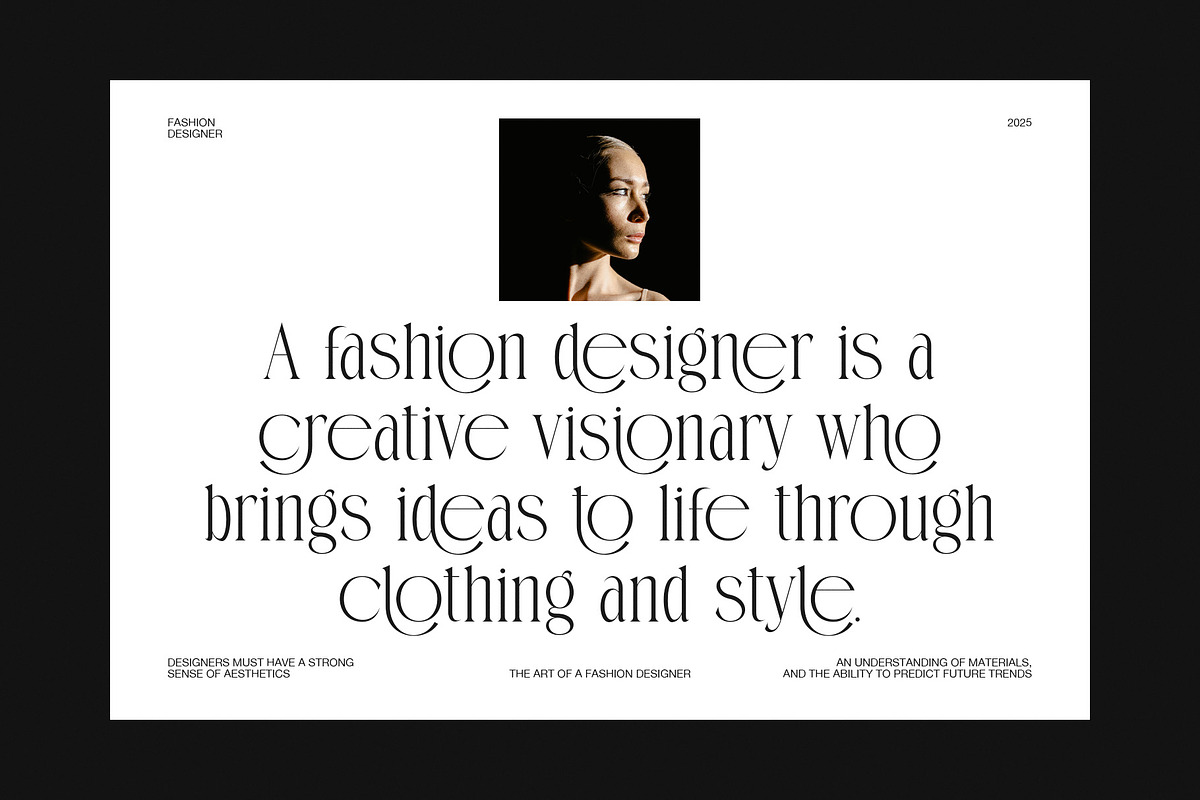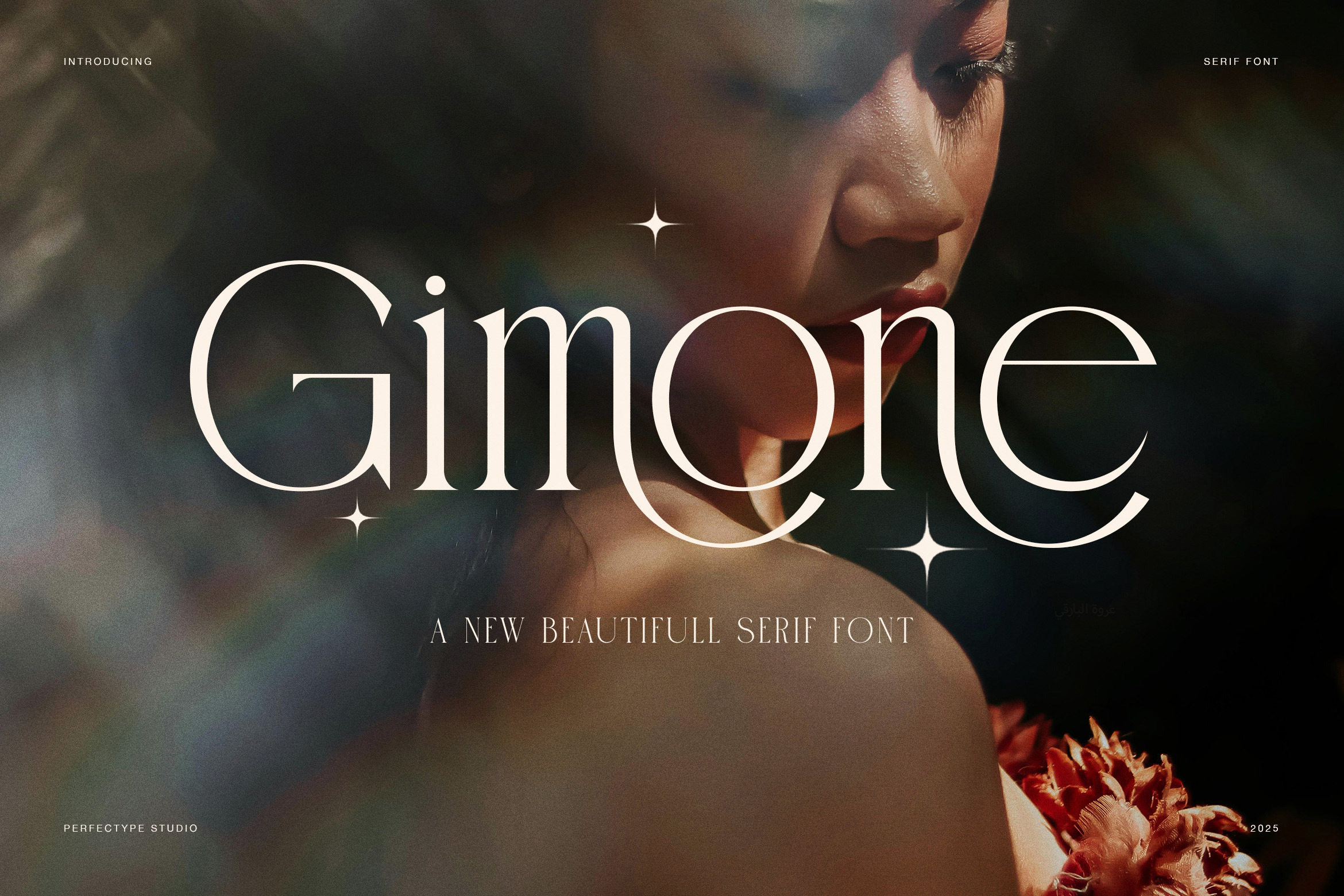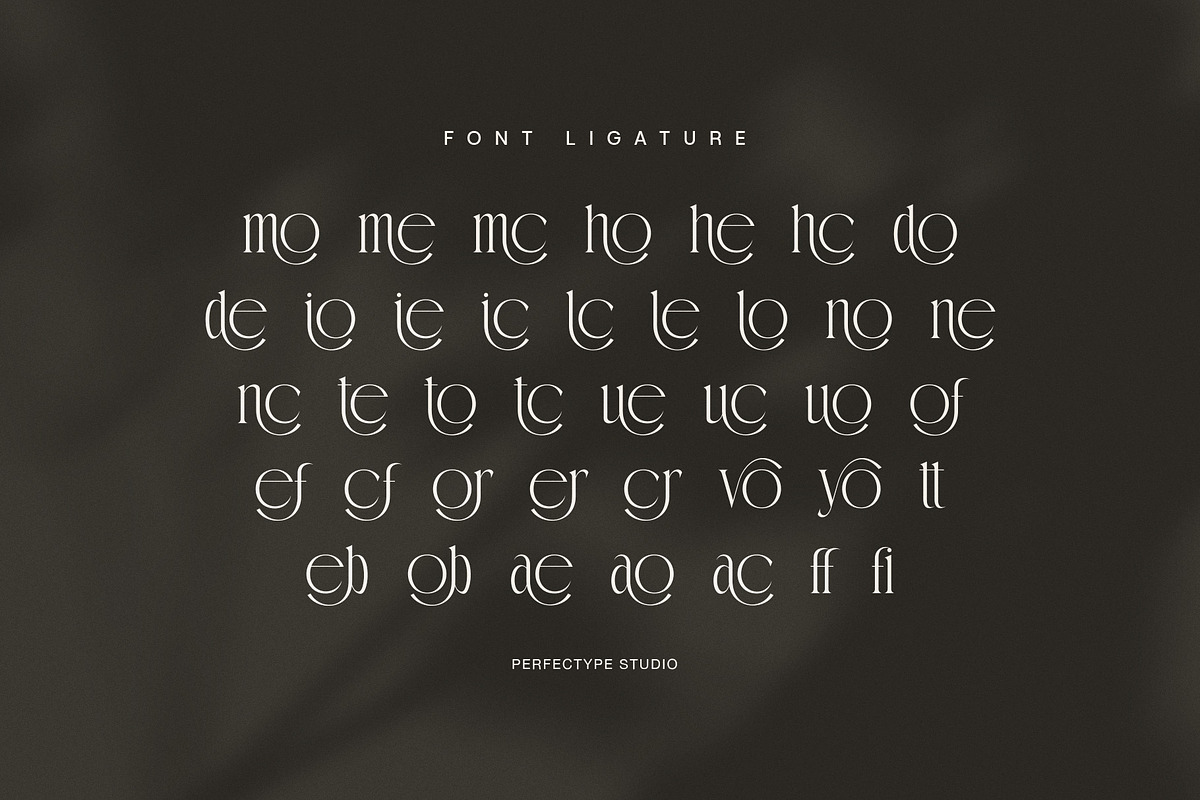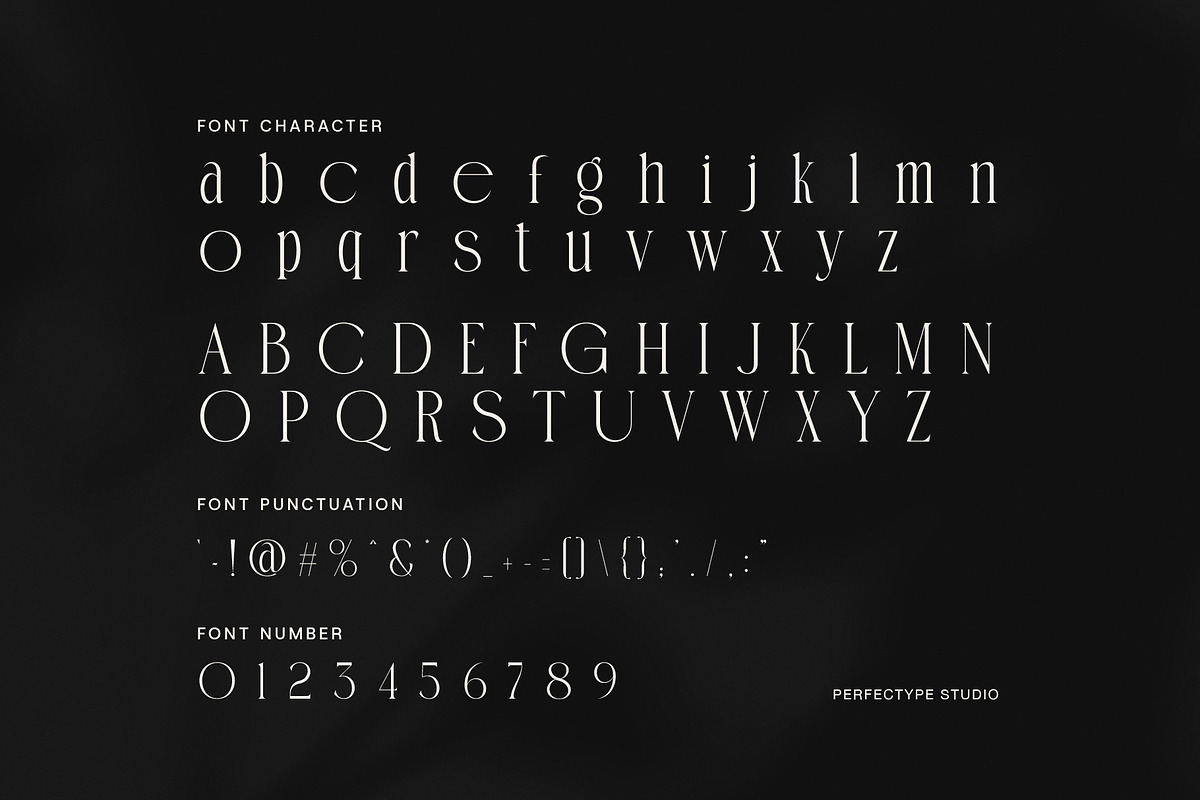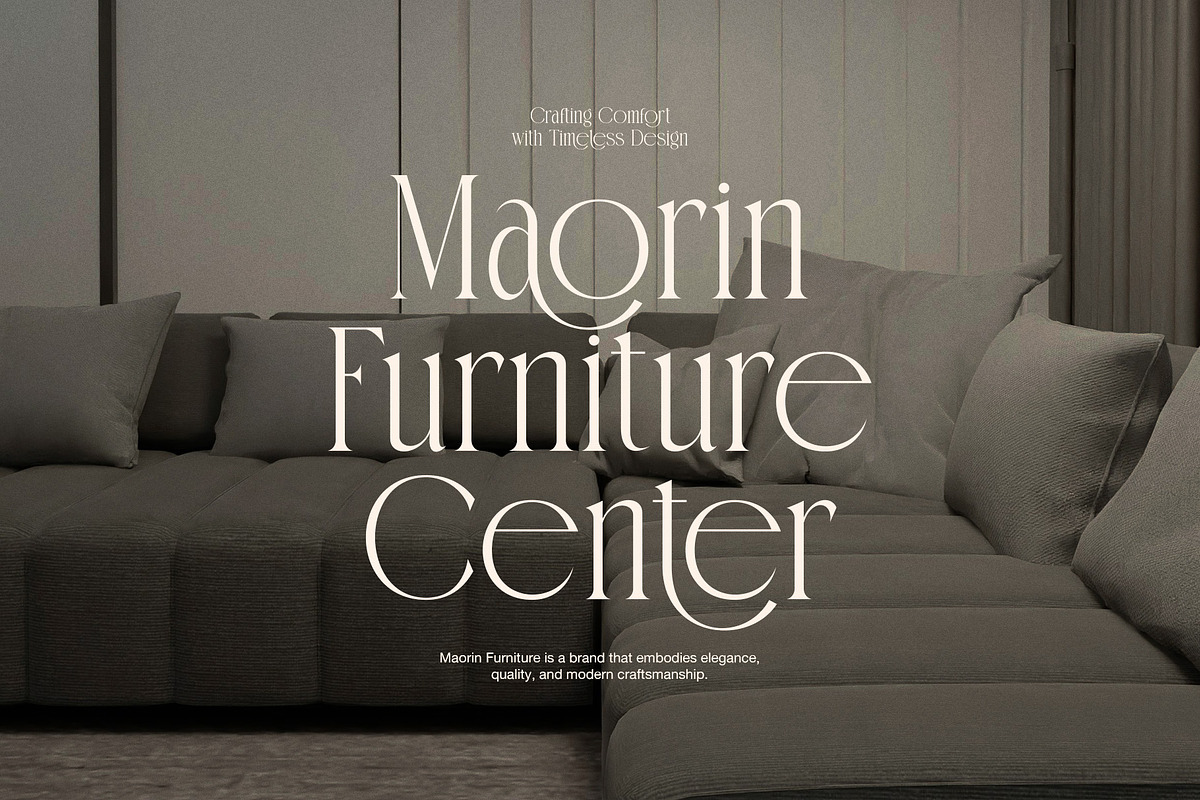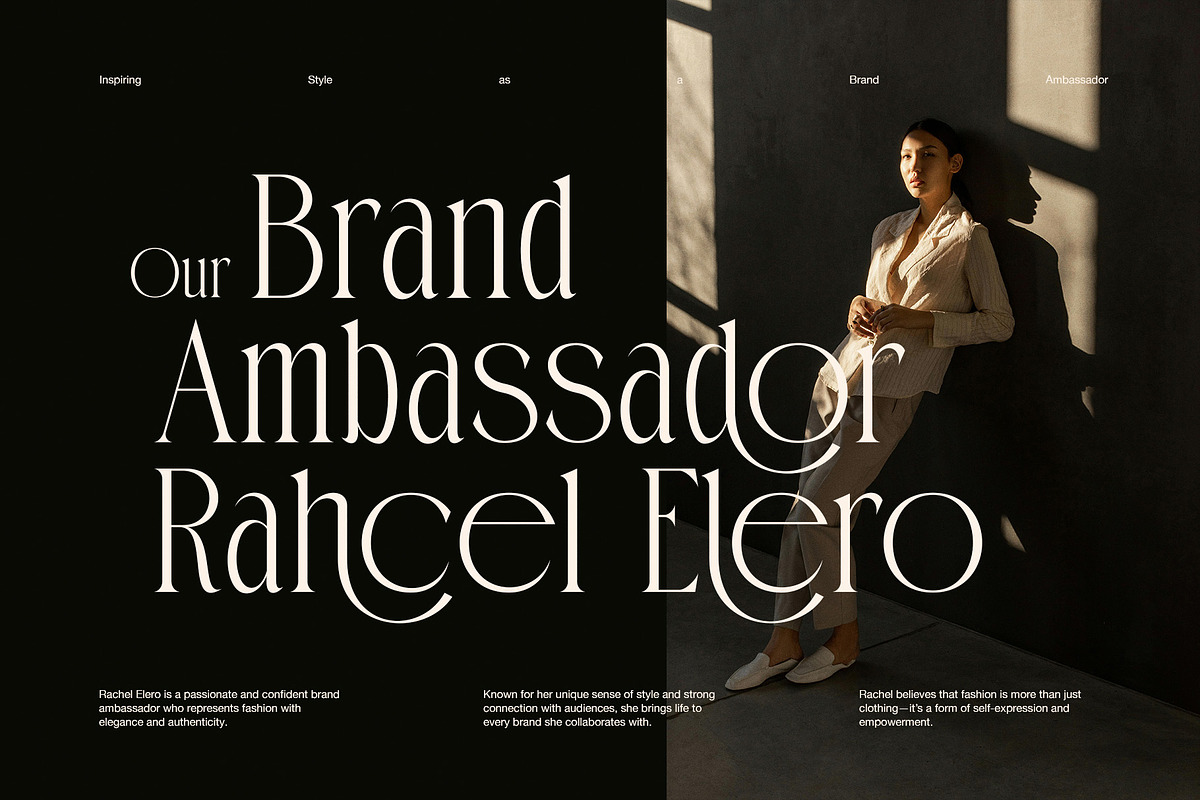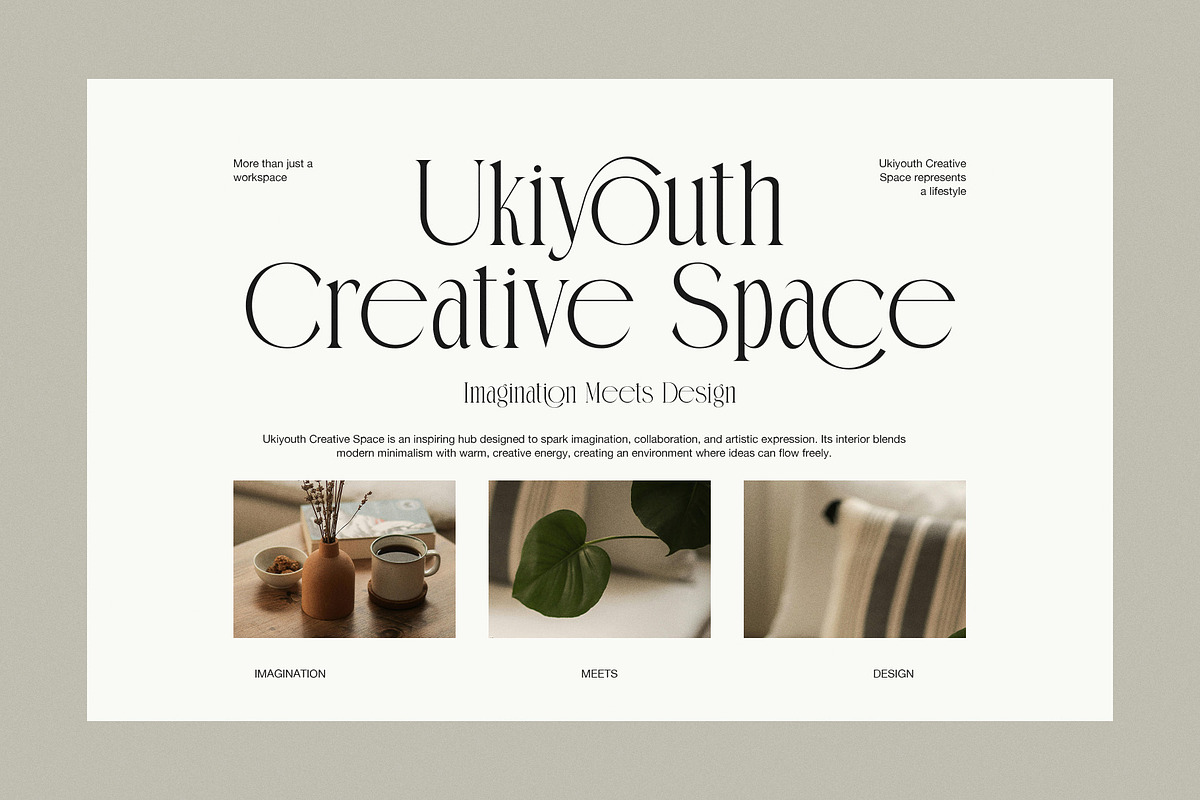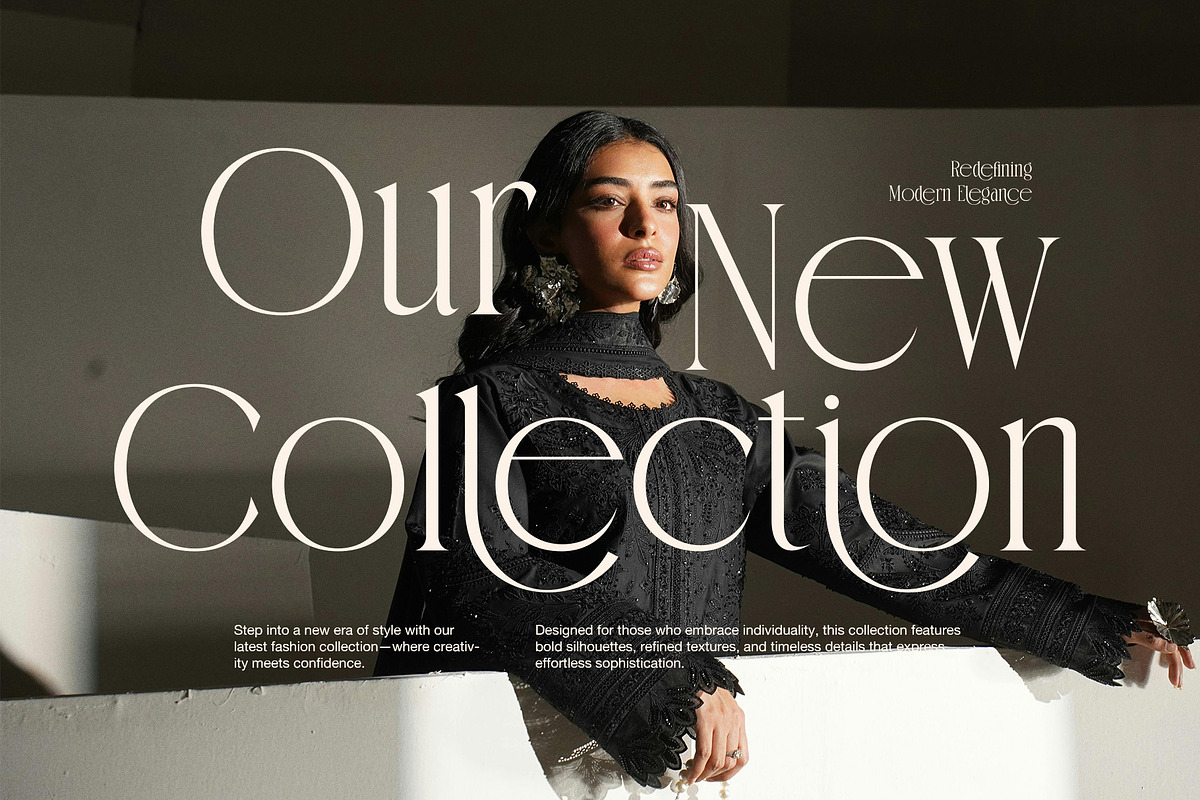
Gimone – Elegant Serif Font
Gimone is an elegant serif font that blends classic structure with expressive character. The letterforms show smooth curves, refined contrast, and graceful shapes that add visual depth to any design. From branding to editorial work, this serif font enhances both style and clarity.
Moreover, Gimone fits many creative needs with ease. Designers can use it for logos, wedding invitations, business cards, and luxury packaging. It also works well for magazine layouts, headlines, titles, and elegant web text. Because each character has clear proportions and thoughtful spacing, the font remains easy to read at all sizes.
In addition, Gimone brings sophistication to digital designs. It elevates website headers, social media visuals, and promotional banners with a refined serif look. At the same time, it supports brand identity projects where tone and style matter most. Designers who value both beauty and readability can count on Gimone to deliver professional results.
Furthermore, Gimone helps you work more efficiently. The font includes uppercase and lowercase letters, numerals, punctuation, and multilingual support, so you can build complete text layouts without swapping typefaces. Pairing Gimone with complementary sans serif fonts also creates strong typography systems for modern design work.
Because of its elegant forms and balanced rhythm, Gimone works beautifully across print and digital formats. Use it for wedding stationery, luxury product labels, branding presentations, and editorial compositions. Each character reflects thoughtful design choices that prioritize harmony and visual attraction.
✨ Why Choose Gimone Serif Font?
Elegant and classic serif style
Smooth curves and refined contrast
Strong readability for print and digital
Perfect for branding and logos
Great for wedding and luxury projects
Ideal for editorial and magazine use
Includes multilingual and punctuation support